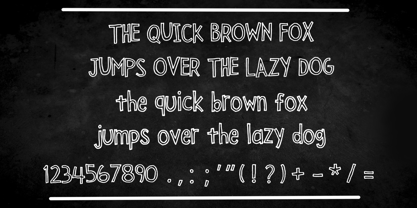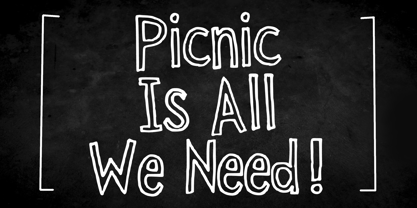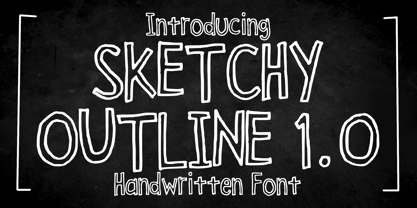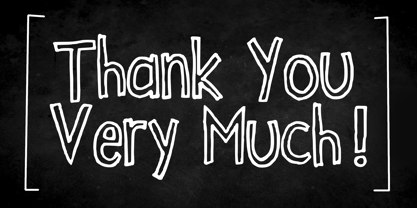
Sketchy Outline 1.0
by Mvmet
The Sketchy Outline 1.0 Font Family was designed by Gabriel Valentinus and published by Mvmet. Sketchy Outline 1.0 contains 1 styles. More about this family
Sketchy Outline is a sketchy handwritten display font. It works great for creating cool designs that scream for attention. It’s ideal for anything ranging from t-shirts, book designs, restaurant menus, blog writing, and greeting cards to stickers, or anything that needs a casual touch. Fall in love with its incredibly cool style, and use it to create lovely designs!
Designers: Gabriel Valentinus
Foundry: Mvmet